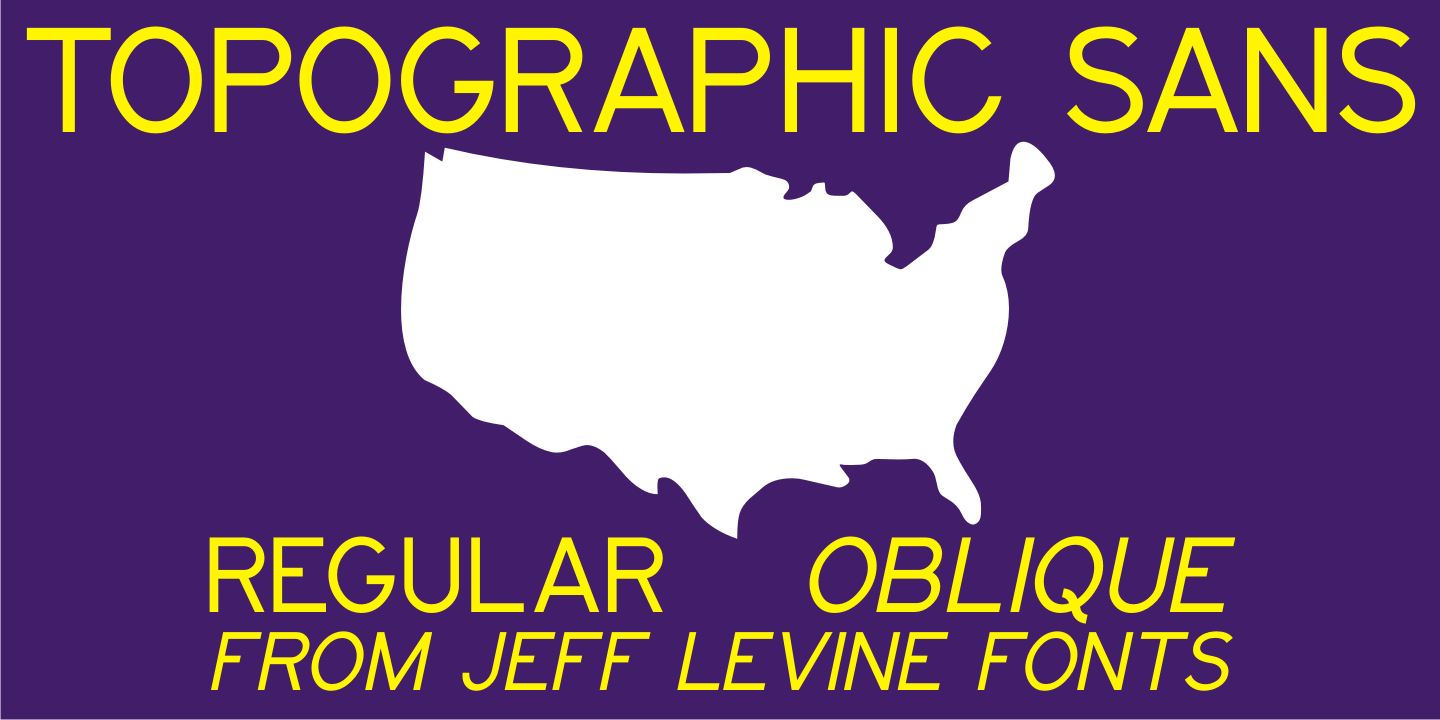
Topographic Sans
Buy NowA 1940s-era book from the U.S. Army Corps of Engineers entitled "Topographic Drafting" features a page for "lettering construction and spacing" in the process of map making.
The letters and numbers were formed on grids using that mechanical drafting process for uniformity in stroke width.
This was the basis for Topographic Sans JNL, which is available in both regular and oblique versions.